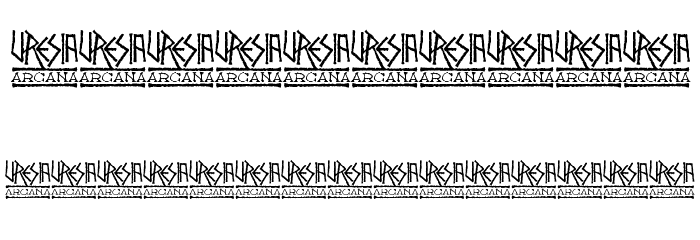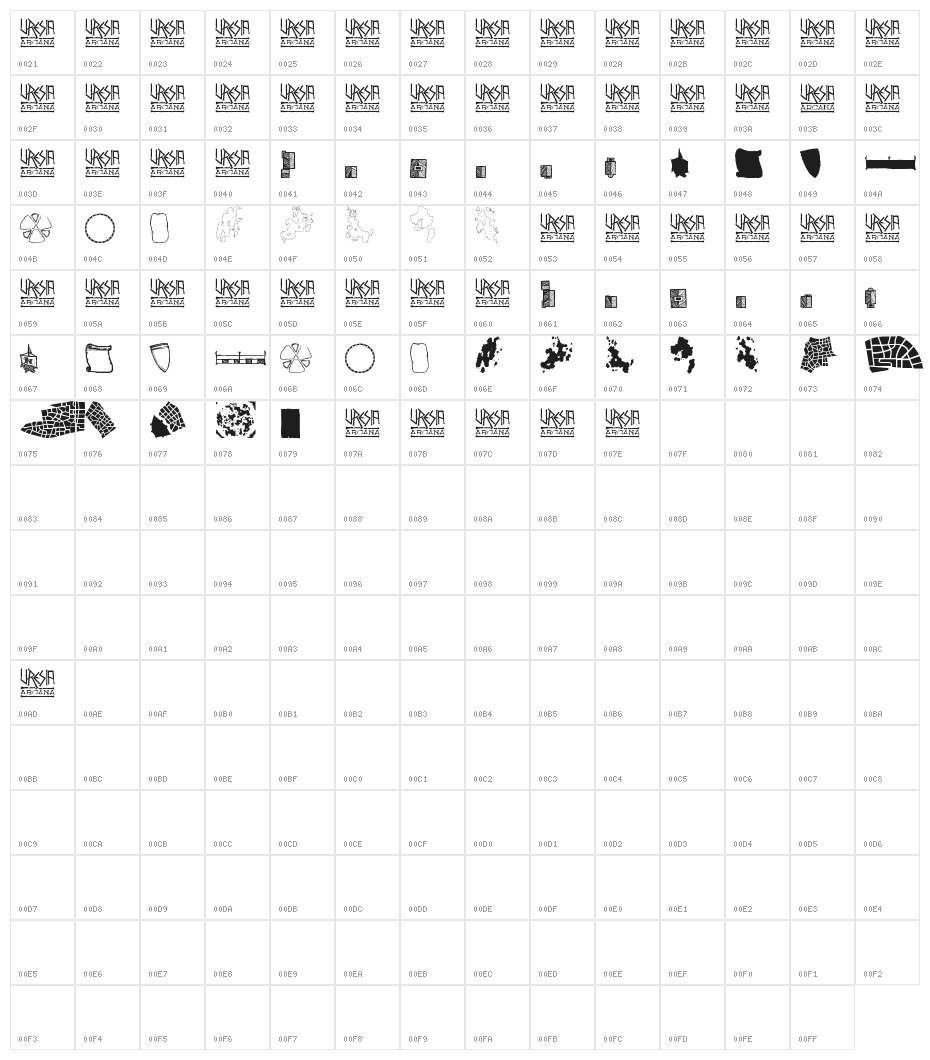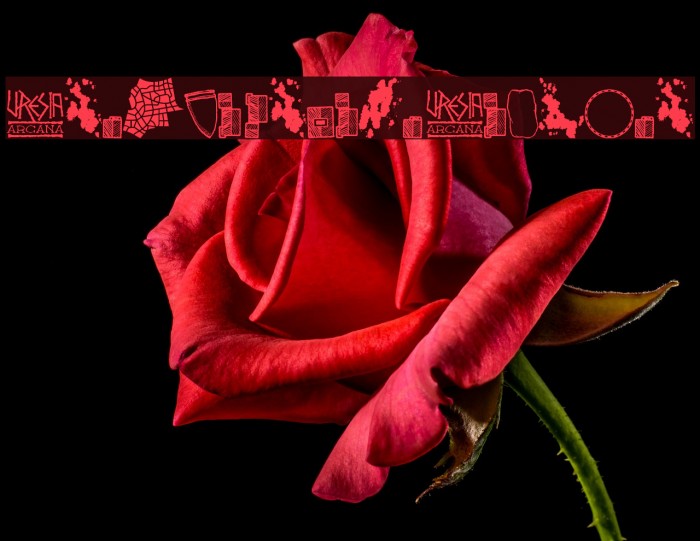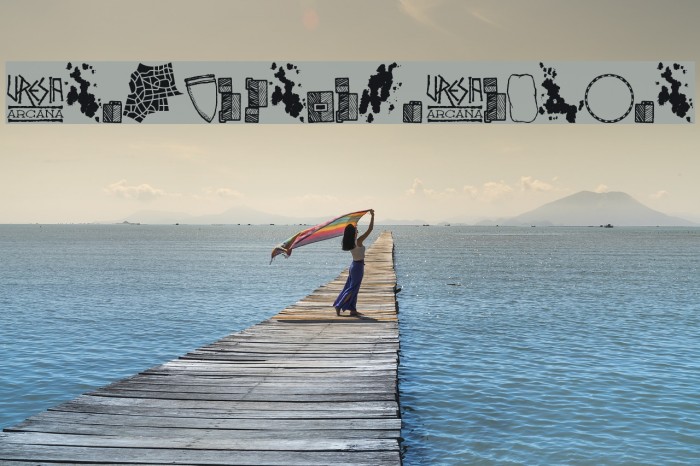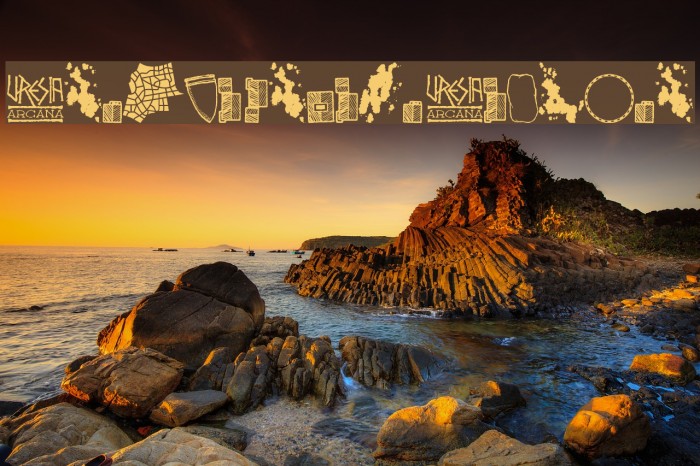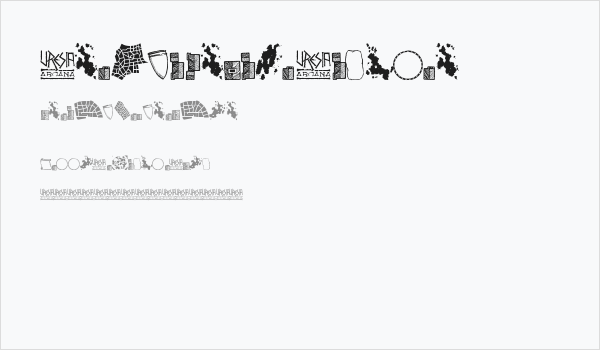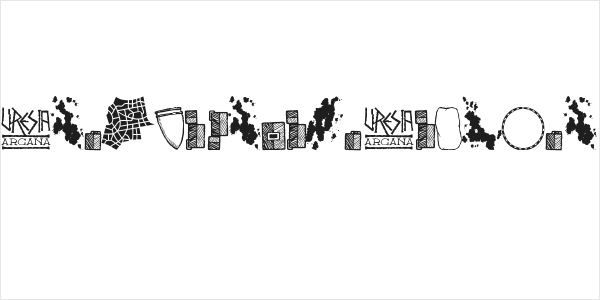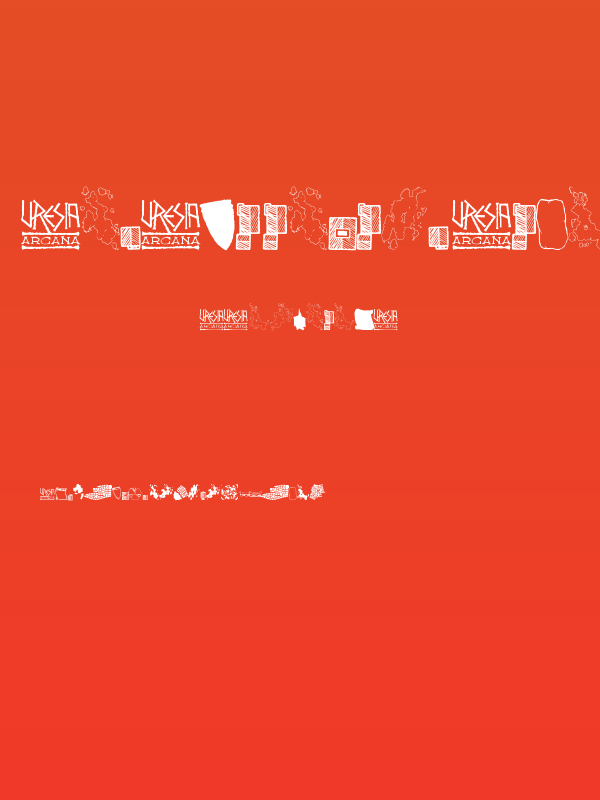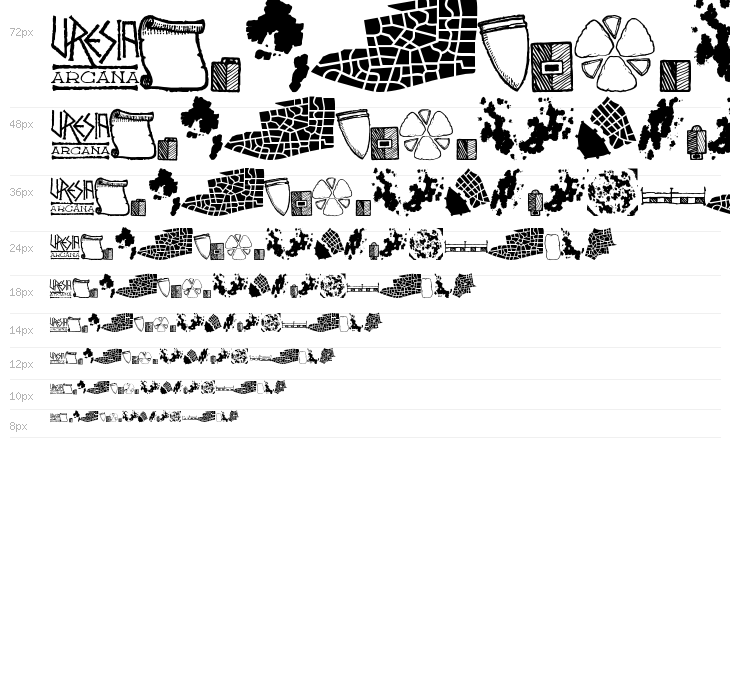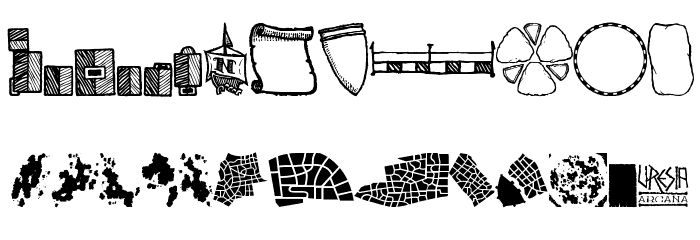
Uresia Arcane Sampler Font
Uresia Arcane Sampler Description
This font features a highly decorative and artistic style, incorporating elements that resemble medieval and fantasy themes. The characters are crafted with intricate details, resembling shields, swords, and other fantasy motifs. The design is bold and eye-catching, making it suitable for thematic projects that require a touch of fantasy or medieval flair. The letters are not uniform, with varying shapes and sizes that add to the whimsical and adventurous feel of the font. It is not suitable for body text due to its complex and ornate design, but it excels in creating a strong visual impact for titles and decorative purposes.
| Proposed Projects | Ideal for fantasy-themed posters, book covers, game titles, and other creative projects that require a medieval or magical aesthetic. |